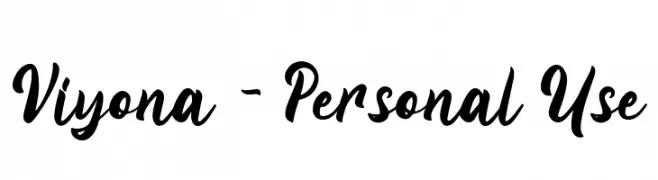
A graceful, handwritten script font with thin, flowing strokes.
A bold, playful font with rounded, hand-drawn characters.
A playful, handwritten script font with fluid, connected characters.
A bold, elegant script font with flowing, interconnected characters.
A playful, bold handwritten font with smooth curves and a modern, informal style.
A bold, cursive font with interconnected characters and a dynamic flow.
A bold, expressive script font with a hand-drawn, connected style.
A playful, handwritten script font with fluid, connected letters.
A flowing, cursive script font with a handwritten style.
A bold, cursive font with a flowing, handwritten style.